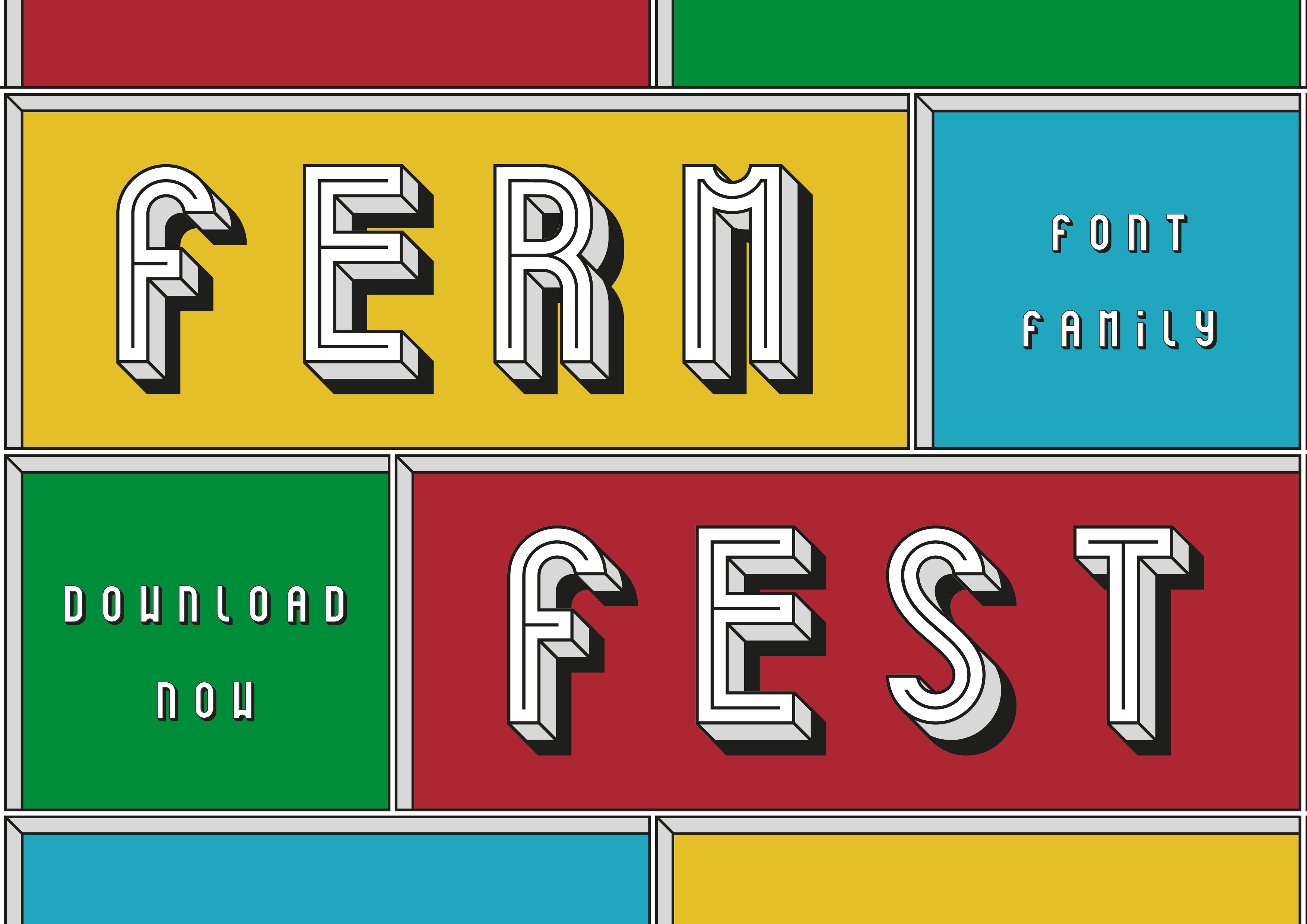
Ferm Fest Display Font Family
The Ferm Fest Family is a chromatic display typeface inspired by old-school traditional sign painting typography and consists of 6 detailed weights.
The Ferm Fest Family is a perfect font for large scale applications, such as posters, signage and so much more.
The goal of this font was to create a homage to old style 3D sign painted typography by creating a bold, attention grabbing font for large scale applications, but also with lighter weights to work well at smaller sizes and across a wide range of applications. This typeface is also ideal to use as a base guide for creating strong 3D lettering effects to be hand painted too.
The font includes a single case made up of a mixture of upper and lowercase characters, resulting in a unique design which will be sure to stand out and be noticed as well as numbers. In the download you will find .otf file types which can be installed easily across applications.